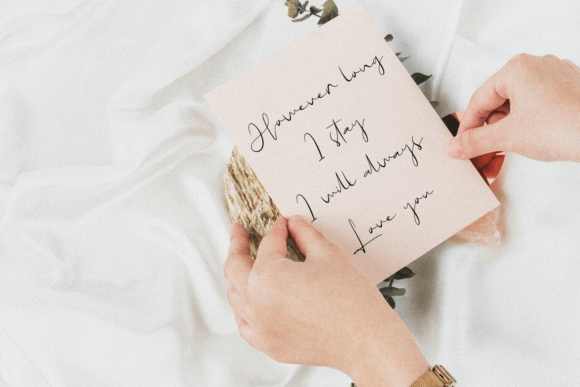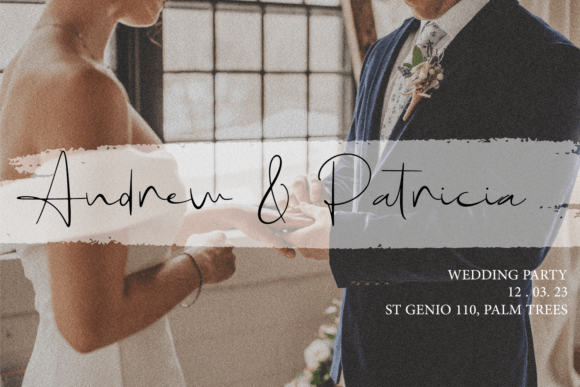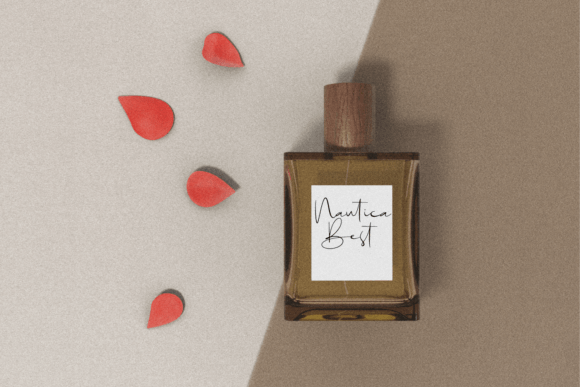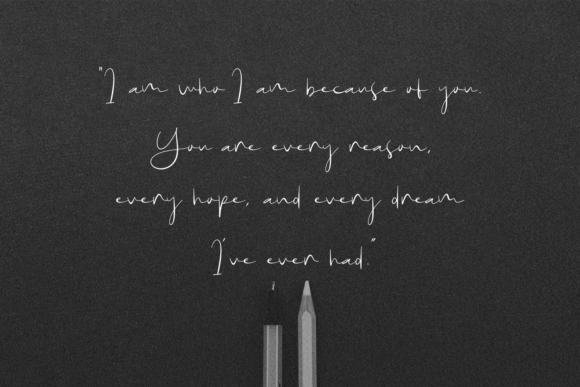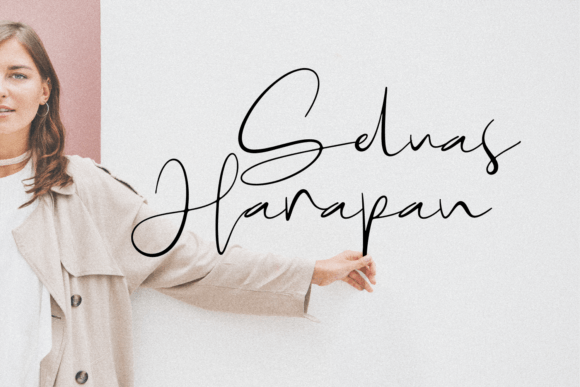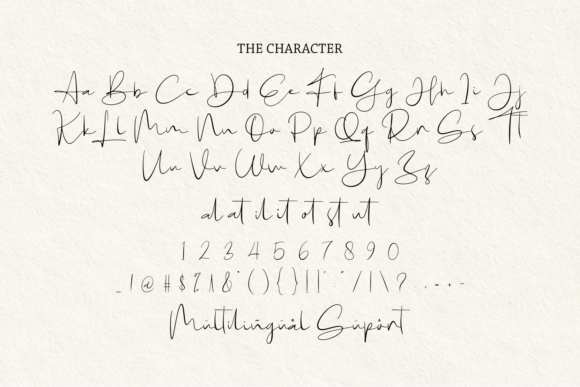
Introduction to Dalgona Bestolen Font
Dalgona Bestolen is a flowing handwritten script font, described by an elegant touch, perfect for your favorite projects.
Key Features of Dalgona Bestolen Font